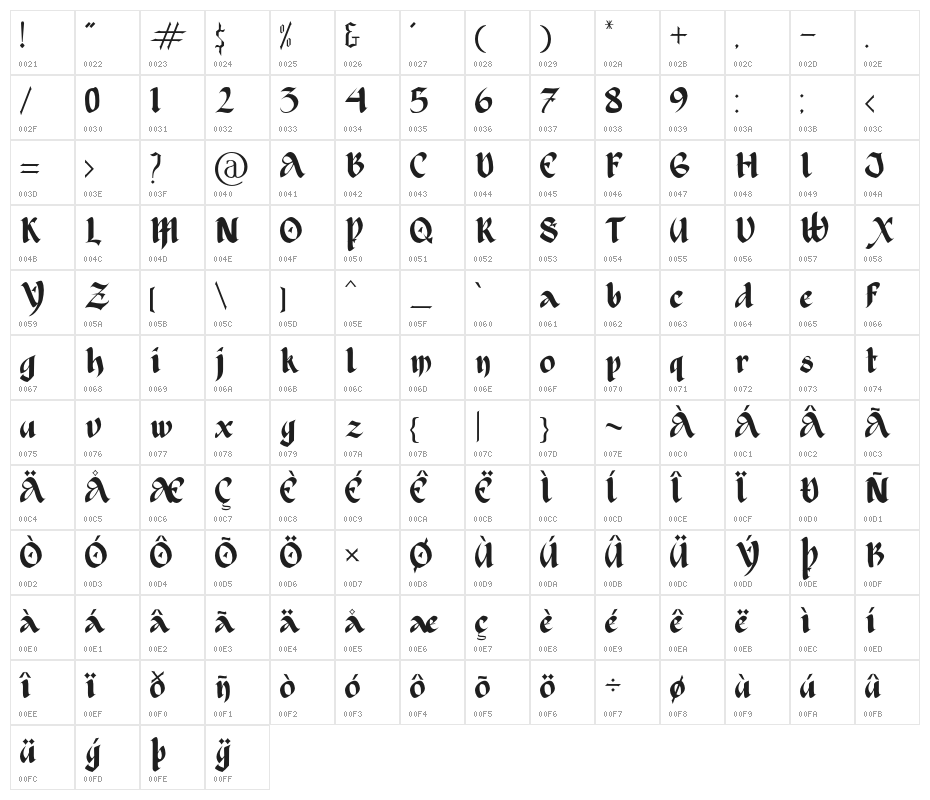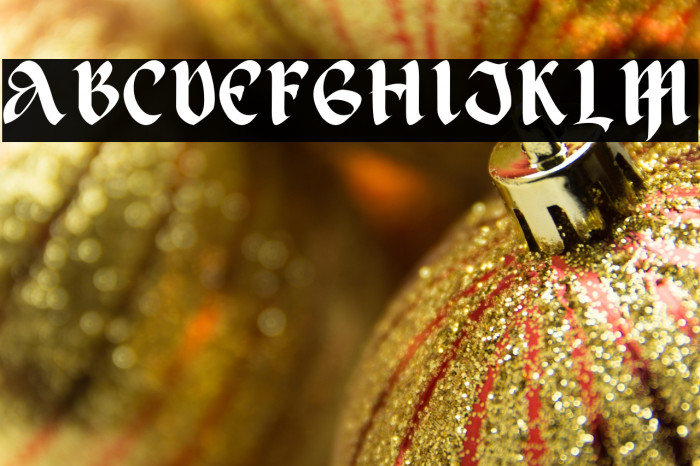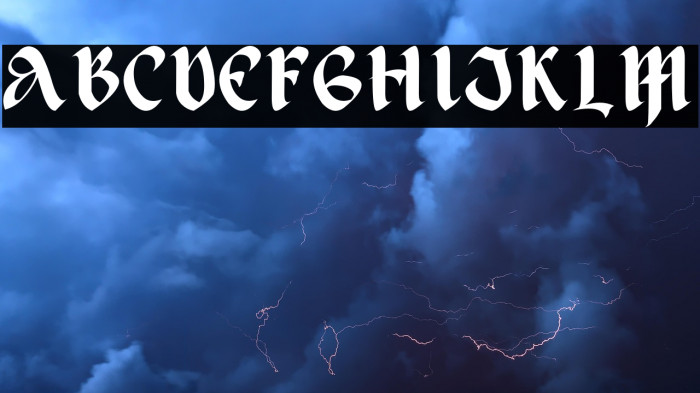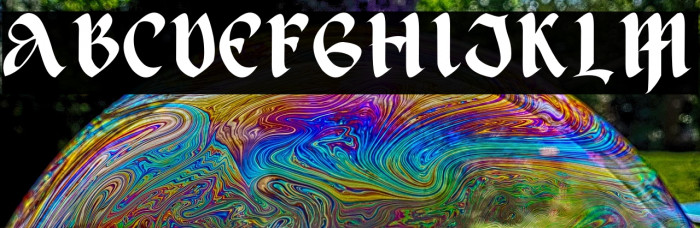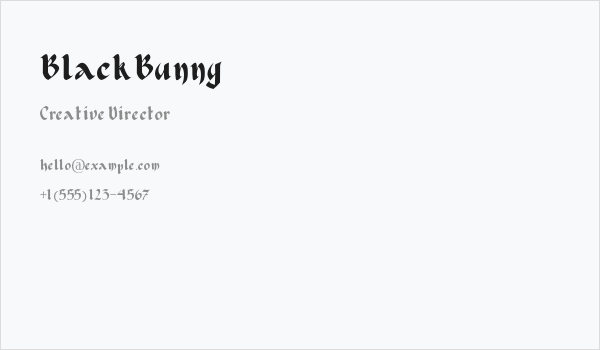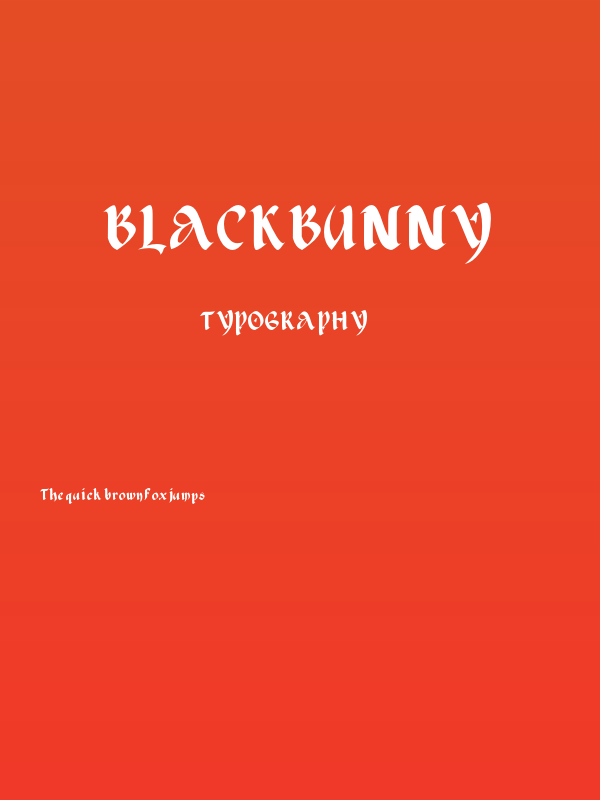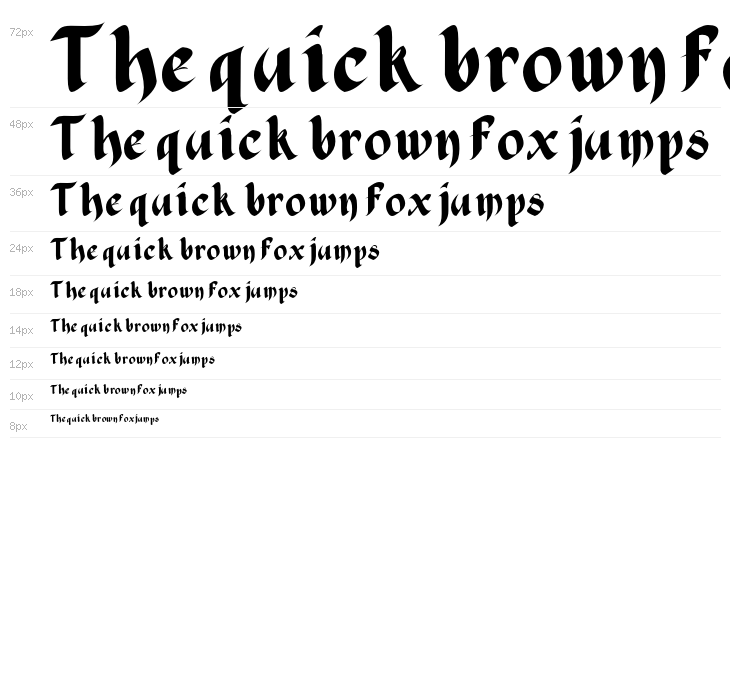
BlackBunny Font
BlackBunny Description
This font embodies the traditional elegance and intricate detailing of Blackletter typography. Each character is crafted with sharp, angular lines and dramatic curves, creating a sense of historical depth and formality. The uppercase letters are bold and commanding, while the lowercase letters maintain a consistent style with slightly more fluidity. The numerals are distinct and maintain the same ornate style, ensuring uniformity across all characters. Special characters are designed with the same attention to detail, making them suitable for decorative purposes. The overall design is reminiscent of medieval manuscripts and Gothic architecture, making it ideal for projects that require a touch of vintage sophistication.
| Proposed Projects | Ideal for certificates, invitations, book covers, branding for luxury products, and any project requiring a vintage or Gothic aesthetic. |